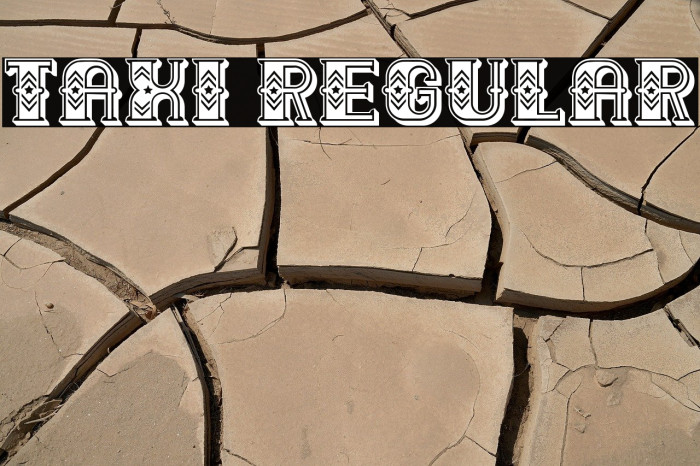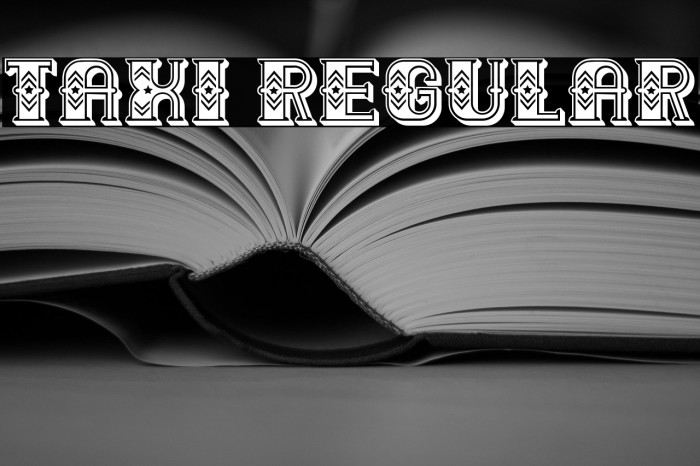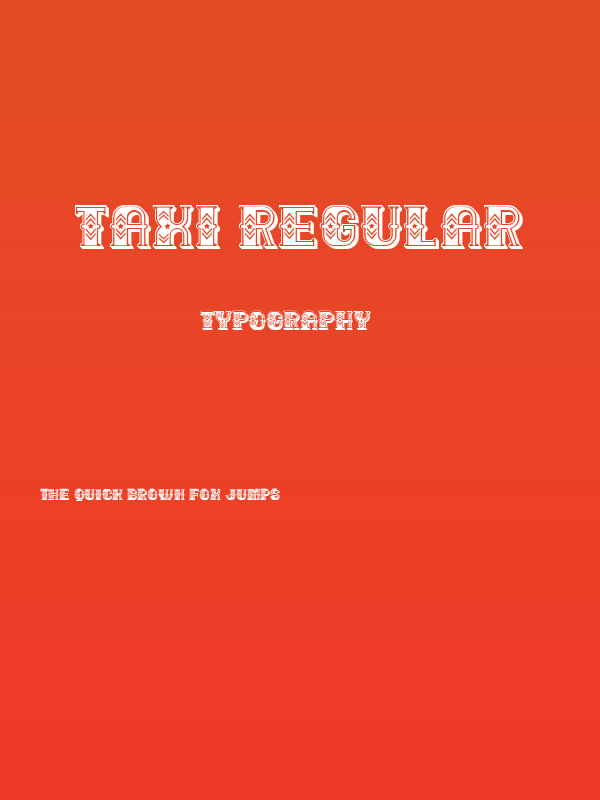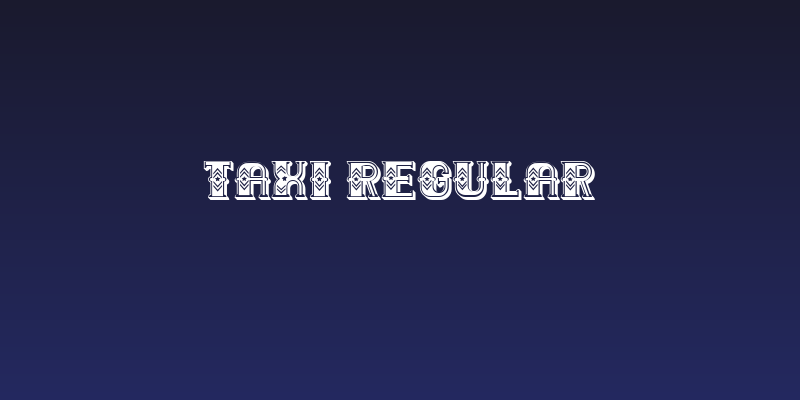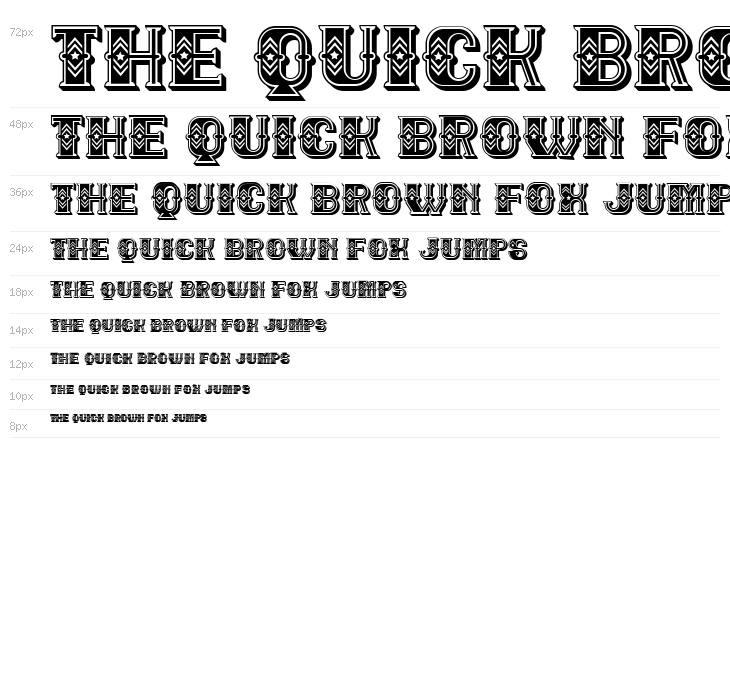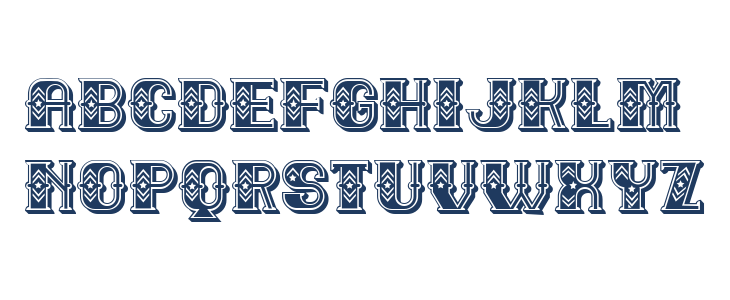
Taxi Regular Font
Taxi Regular Description
This font features a bold, decorative style with intricate patterns within each character. The uppercase letters are designed with a strong, geometric structure, incorporating ornate details that give it a unique and eye-catching appearance. The characters are outlined with a thick border, enhancing their visibility and impact. The font's design is reminiscent of vintage signage, making it suitable for projects that require a touch of nostalgia and elegance. Its distinct style makes it ideal for use in headlines, posters, and branding materials where a strong visual statement is desired.
| Overall Style | Vintage, Decorative |
| Proposed Projects | Ideal for vintage-themed posters, branding, signage, and decorative headlines. |